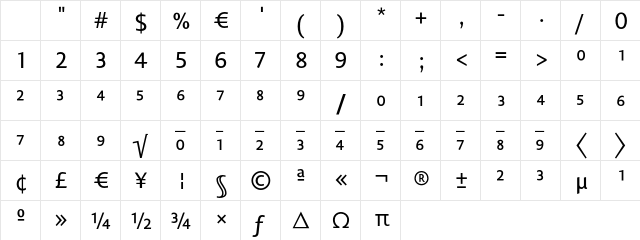
Lisboa Sans Expert Regular Free Font
Lisboa Sans Expert Regular
Design Context for Lisboa Sans Expert
Lisboa Sans Expert is a composed and adaptable typeface that performs quietly and consistently across a wide range of design contexts.